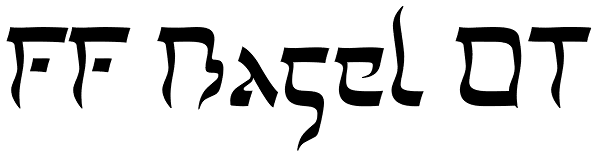
FF Bagel
Danish type designer Per Jørgensen created this script FontFont in 2002. The font is ideally suited for advertising and packaging, festive occasions, film and tv as well as software and gaming. FF Bagel provides advanced typographical support with...